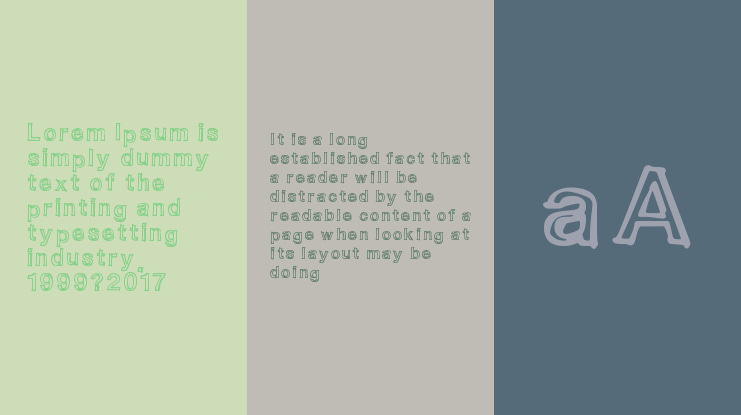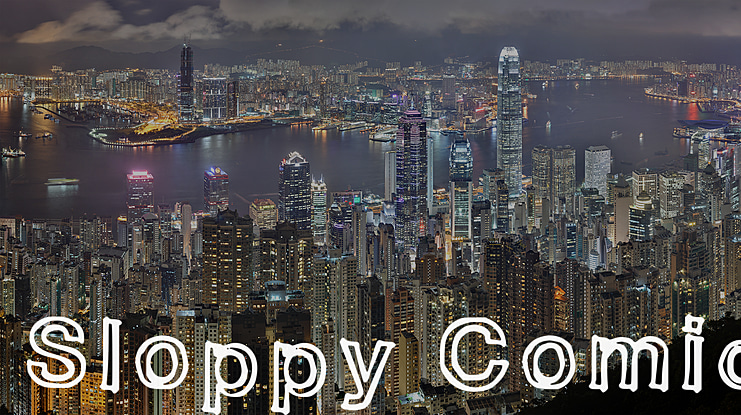
Sloppy Comic Font
Looking for a clean, handwritten comic style without any of the hang ups from THAT other comic font? Great for birthday invites, childrens parties and such. Outlined so you can choose the colour or maybe print out the words for your little ones?